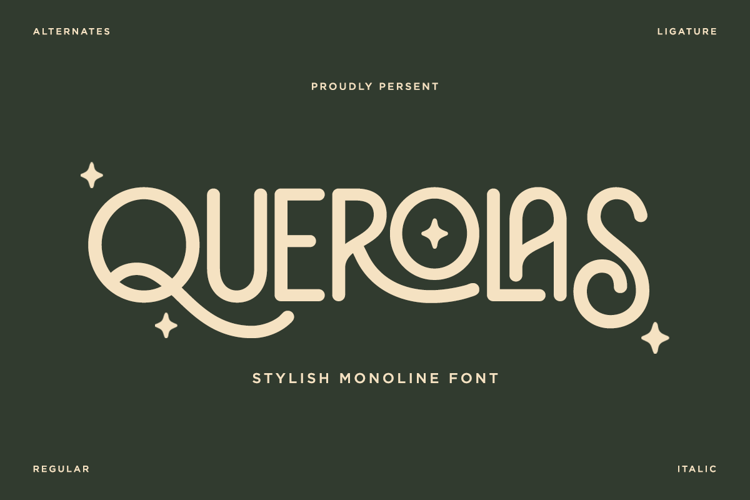
Querolas Font
Meet Querolas, a playful yet elegant monoline design that brings a touch of retro charm and modern style to any project. Its smooth curves, balanced lines, and decorative alternates make it perfect for creating standout visuals with personality. Querolas is designed to be both fun and versatile — perfect for projects that need a creative, eye-catching touch. Perfect for Branding & Logo Design, Retro Posters & Signage, Product Packaging, Social Media Content, Wedding Invitations, Apparel & Merch Design, Quotes & Headlinesfor
– Alternates & Ligatures
– Multilingual Support
– Number, and Symbol.